Dashed W mark
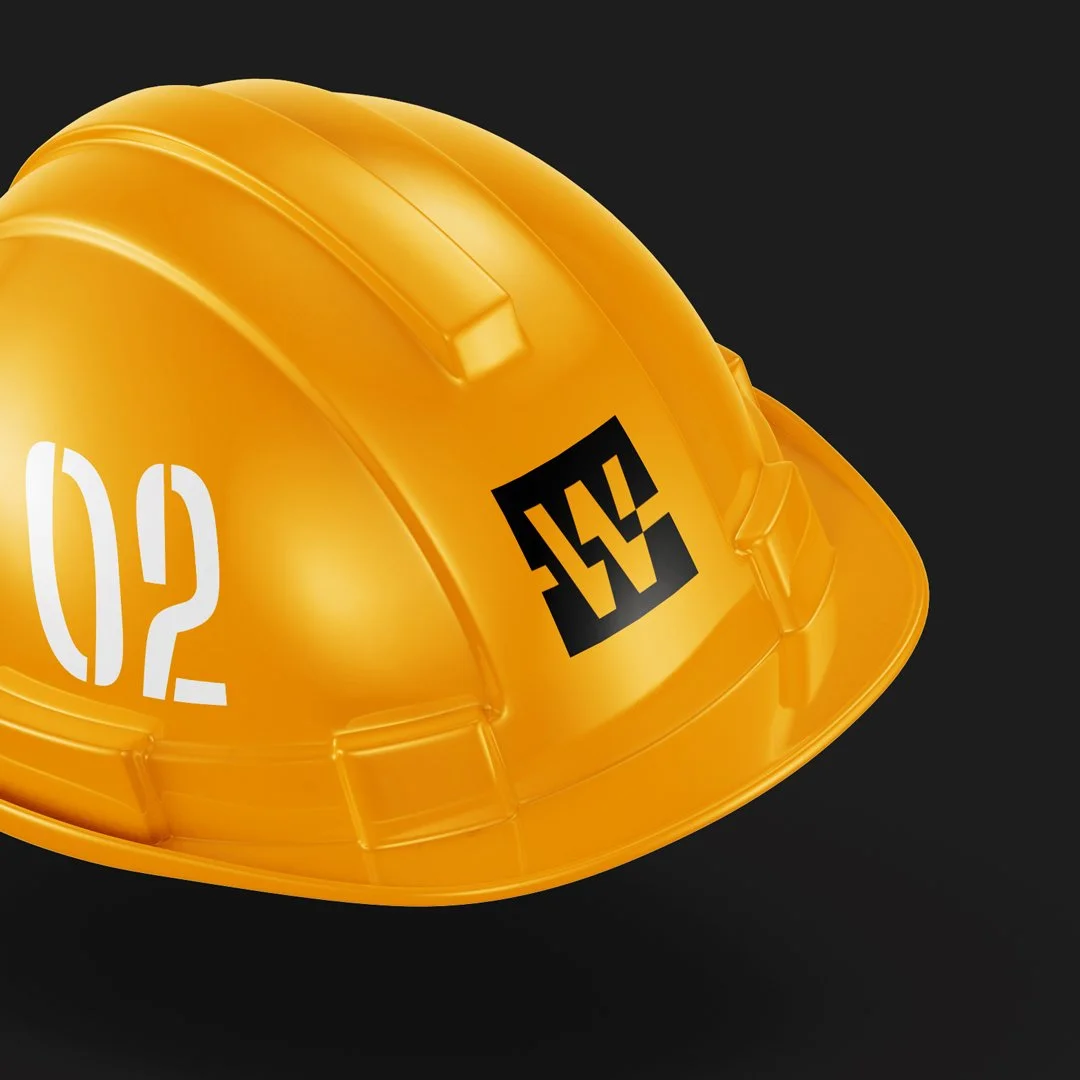
Dashed W mark
A solid letter “W” with a line going through it and fit into a square. Could fit brands and products in the field of construction, hardware, metalwork, woodwork, crafts, etc.